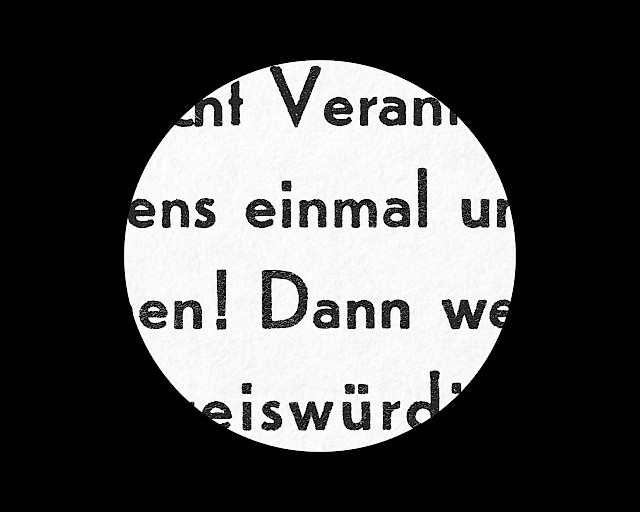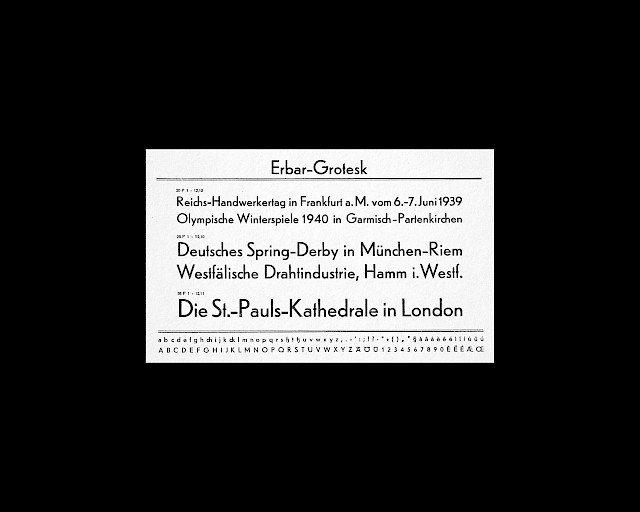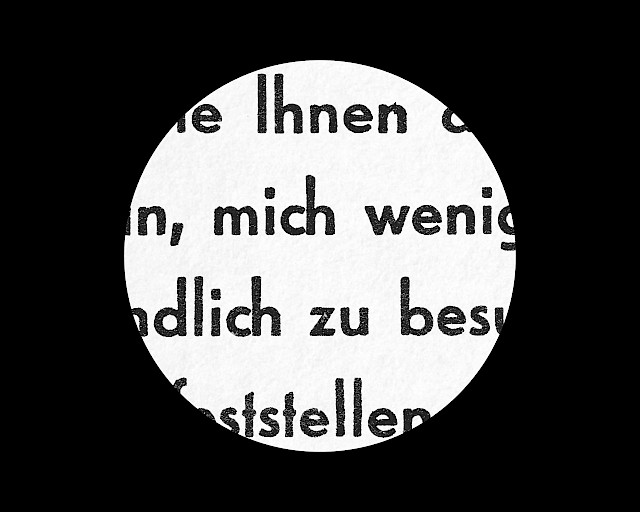
History
Erbar, Jakob Erbar ( 1926 )
ToShorten owes to the work of Harold Curwen and Jakob Erbar, who designed Curwen Sans ( 1911 ) for Curwen Press and Erbar Grotesk ( 1926 ) for the Ludwig & Mayer type foundry, respectively. These two typefaces were precursors to the geometric sans-serif style of the early 20th century. This modern aesthetic, characterized by letterforms inspired by basic geometric shapes, subsequently gained popularity thanks to the work of designers such as Edward Johnston ( Johnston, 1916 ), Eric Gill ( Gill Sans, 1926 ), and Paul Renner ( Futura, 1927 ). This typeface aims to reflect the optical balance and overall coherence of these carefully constructed typefaces. With a strong emphasis on shortening the terminals — hence its name “ToShorten”— the typeface is based on straight lines and circles, while incorporating a series of subtle optical adjustments. With its vertical proportions which results in a noticeable difference between lowercase and uppercase letters, ToShorten offers both functional and distinctive qualities. The family consists of a single Regular version, accompanied by an extra Condensed variant. This pair of typefaces is well-suited for body text in the regular version, as well as for bold applications in the condensed version. Designed between 2022 and 2023, it was first released in 2023.
SHORTEN
Combinations
Shorten
- Access All Alternates ( aalt )
- Case-Sensitive Forms ( case )
- Glyph Composition / Decomposition ( ccmp )
- Fractions ( frac )
- Standard Ligatures ( liga )
- Ordinals ( ordn )
- Proportional Figures ( pnum )
- Stylistic Set 1: Alt. a ( ss01 )
- Stylistic Set 2: Alt. e ( ss02 )
- Stylistic Set 3: Alt. f, t ( ss03 )
- Stylistic Set 10: Alt. zero ( ss10 )
- Superscript ( sups )
- Tabular Figures ( tnum )